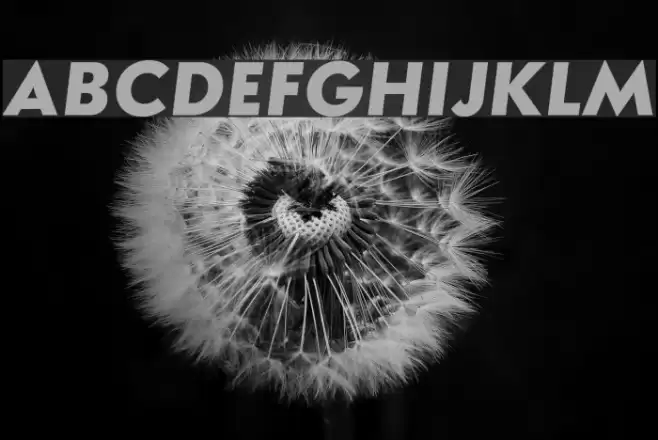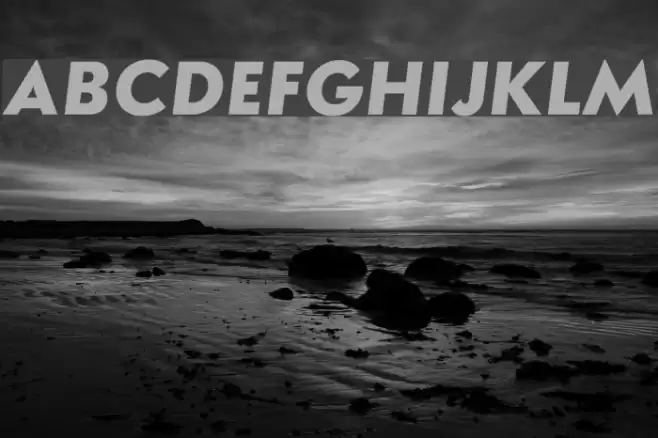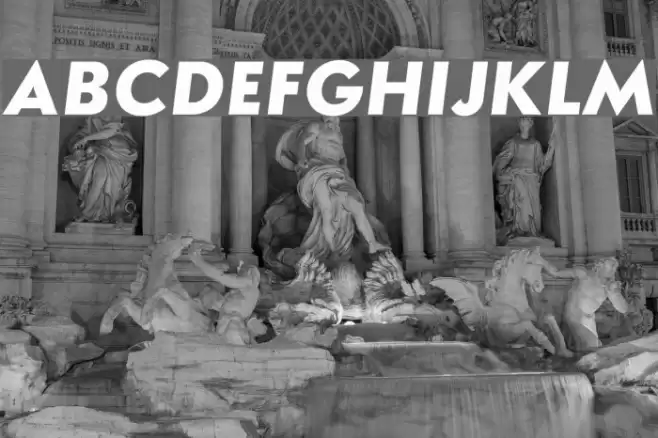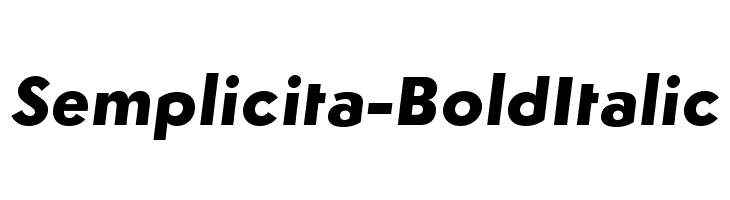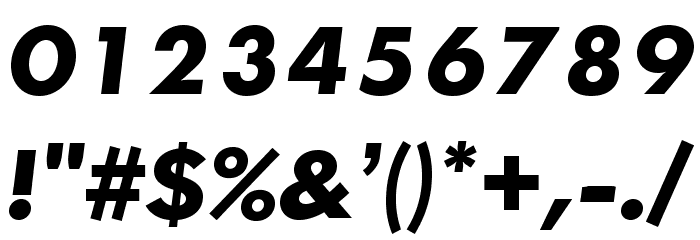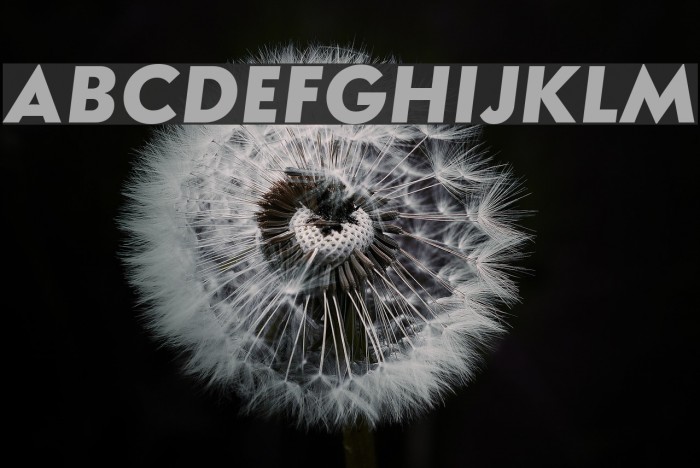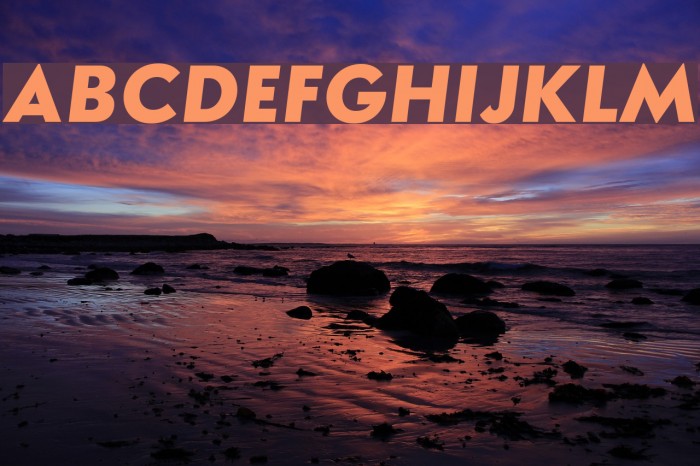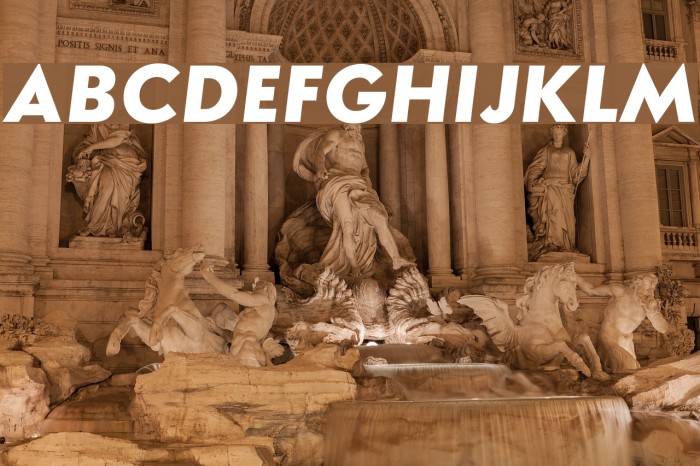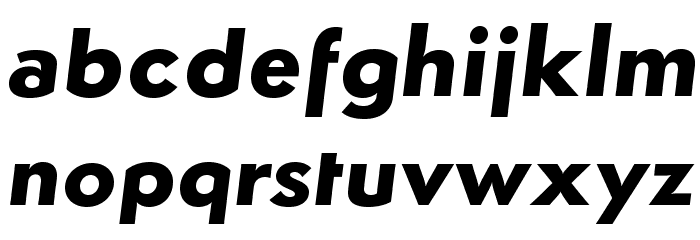
Semplicita-BoldItalic Font
Semplicita-BoldItalic Description
This font features a bold and italicized style, characterized by clean lines and a modern aesthetic. The uppercase letters are strong and assertive, while the lowercase letters maintain a consistent flow with a slight slant, enhancing readability. The numerals are clear and well-defined, making them suitable for various applications. Special characters are designed with precision, ensuring they complement the overall style. The font's boldness and italic nature give it a dynamic and energetic feel, making it ideal for attention-grabbing headlines and impactful designs.
A bold, italicized font with a modern and dynamic style from Uncategorized fonts.
- Proposed Projects: Ideal for branding, advertising, posters, and editorial design where a strong and modern impression is needed.
- Use Case: Headlines, Logos, Advertising